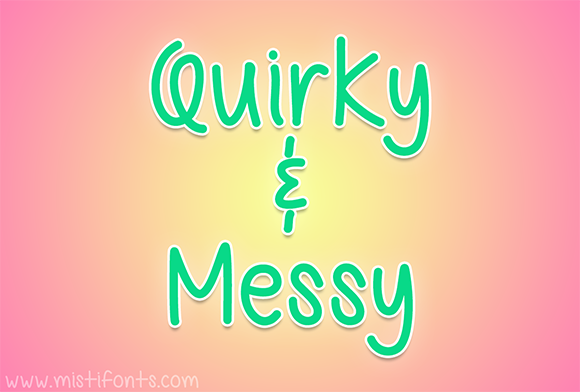
HomeScript FontsQuirky and Messy Font Script Fonts Quirky and Messy Font FacebookXPinterestWhatsApp About Quirky and Messy Font Quirky and Messy is a fun, casual handwritten font that is perfect for your design and craft projects! DOWNLOAD NOW People also explored Shattered Dreams JNL Font Creative Vintage Font PAG Liberta Circle Monograms Socialist Font Mister Butter Font Free Jump Font Shrag Script Simple Minimalse Font 322 0 TagsQuirky and Messy Font Previous articlePlumeria FontNext articleLibiri Font LEAVE A REPLY Cancel reply Comment: Please enter your comment! Name:* Please enter your name here Email:* You have entered an incorrect email address! Please enter your email address here Website: Save my name, email, and website in this browser for the next time I comment. Personal Use Free Lightning Script Personal Use Free Read more about this font BD Fluke Personal Use Free Read more about this font Abuget Free Script Personal Use Free Read more about this font Ashay Personal Use Free Read more about this font BLOG Free vs Paid Fonts: Why Investing in Premium Fonts Is Worth It Free vs Paid Fonts: Why Premium Fonts Are Worth It in 2025 The debate of free vs paid fonts continues in the design world. While... Top 10 Handwritten Fonts That Elevate Your Designs Best Fonts for YouTube Videos: Make Your Thumbnails Stand Out Using Fonts in Digital Marketing: Tips to Strengthen Your Brand Identity